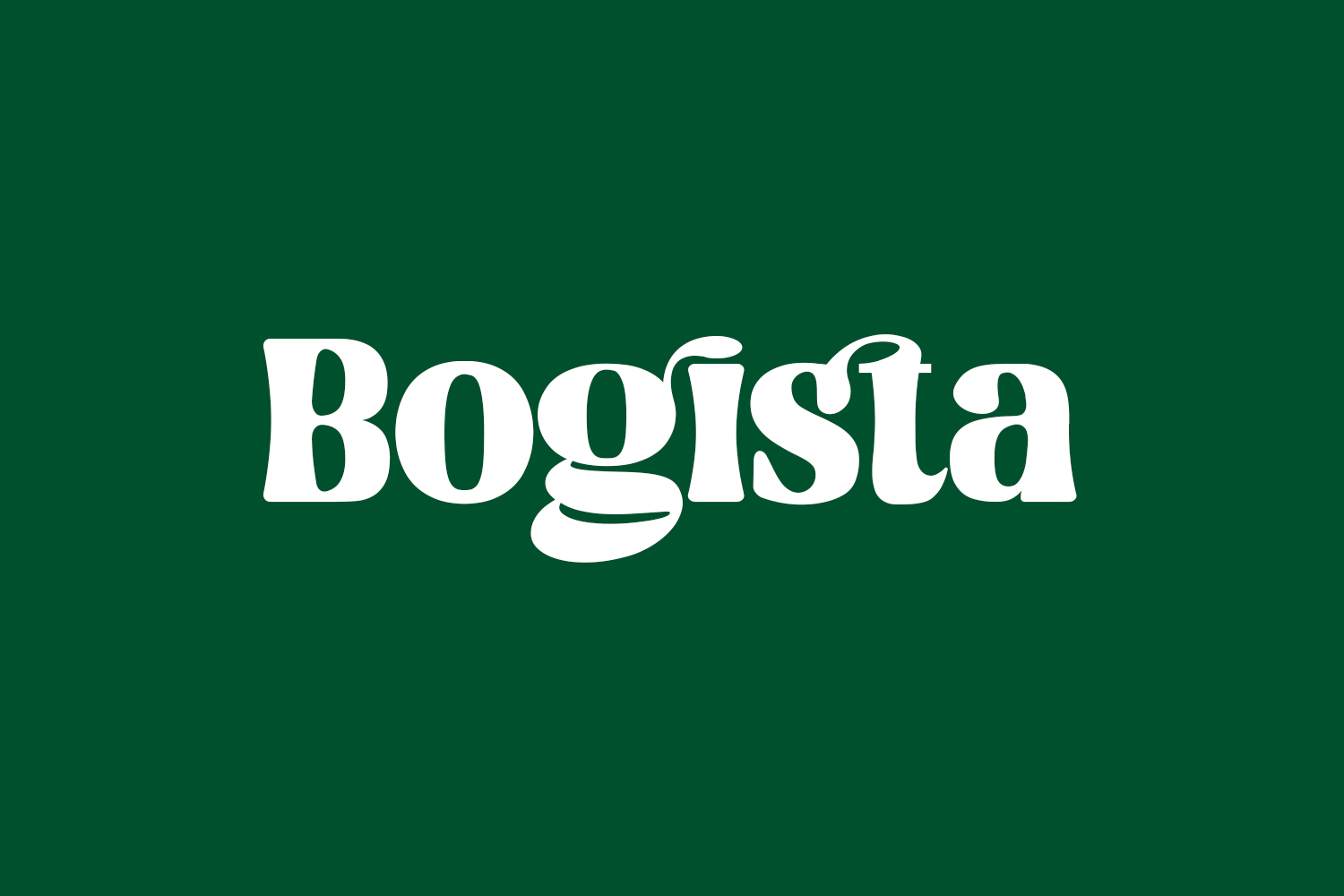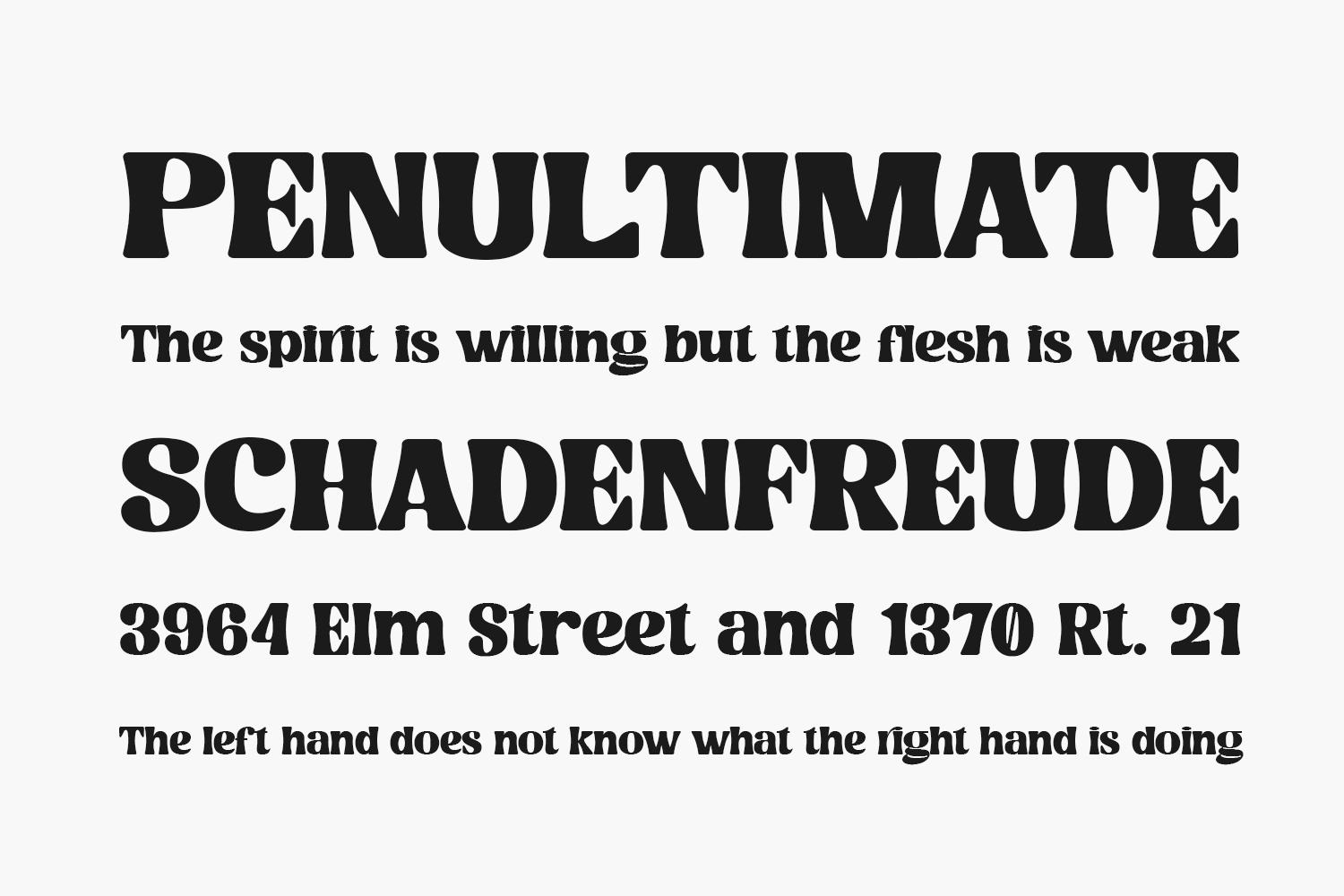
Introducing Bogista Free Font, a sophisticated bold serif display font that leaves a lasting impression. With its elegant and professionally crafted design, this font effortlessly complements a diverse range of creative projects, adding a unique twist to each. Incorporate Bogista into your work with confidence, and witness the impressive results it brings to your designs. Bogista Free Font was designed by Ronny Studio and is free for personal use only. Please purchase the full version for commercial use.
Designed by Ronny Studio